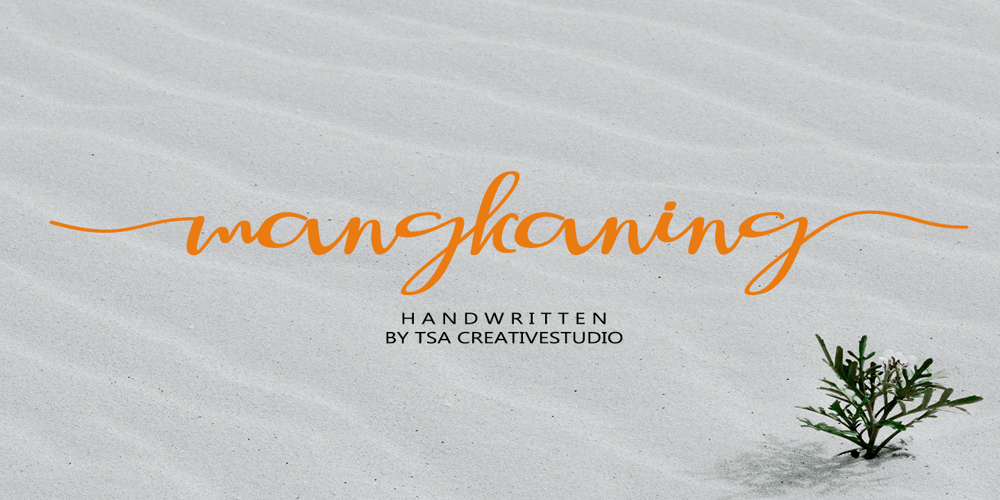
Mangkaning
Mangkaning font
Mangkaning Font Family was designed by Estiko Priyanto and published by TSA Creative. Mangkaning contains 1 styles and family package options. mangkaning is a beautiful script font with stylistic set ( ss01 & ss02), this font looks natural, elegant and perfect for any extraordinary project.mangkaning is suitable for various products such as invitations, product packaging, product design, crafter, labels, photography, watermarks, logos & branding.Everything can be accessed using software that supports Opentype, such as Adobe Indesign, Adobe CS Illustrator, Adobe Photoshop CC, and Corel Draw.